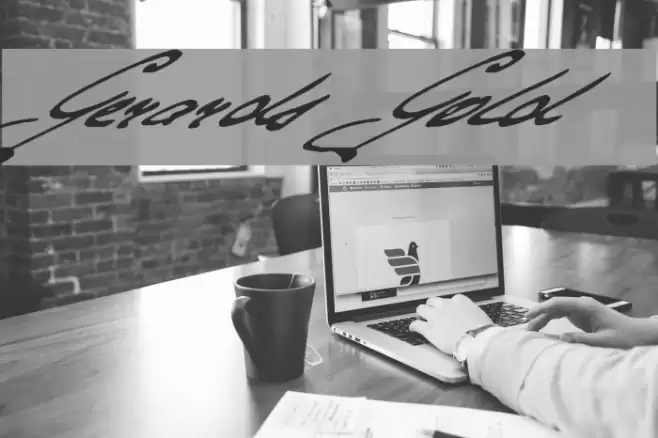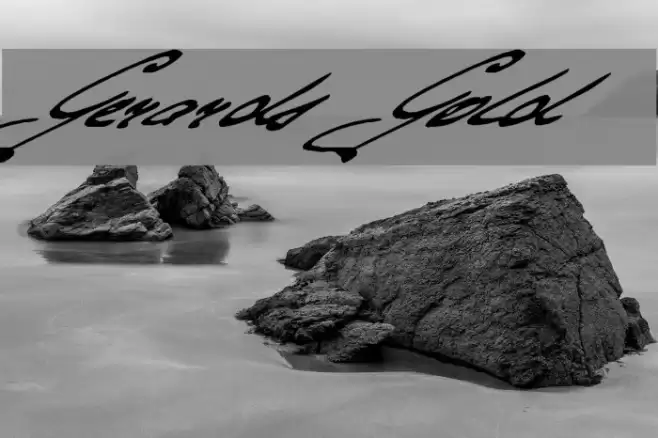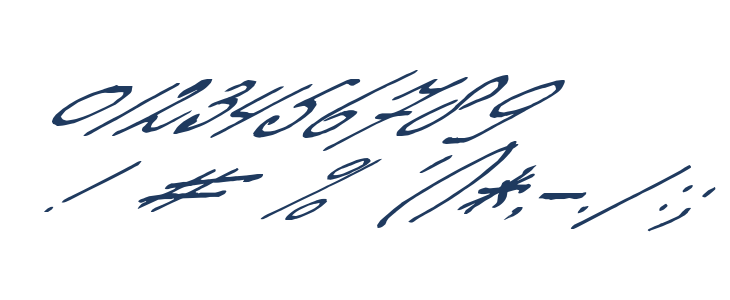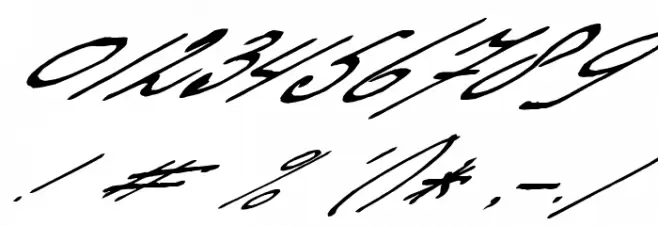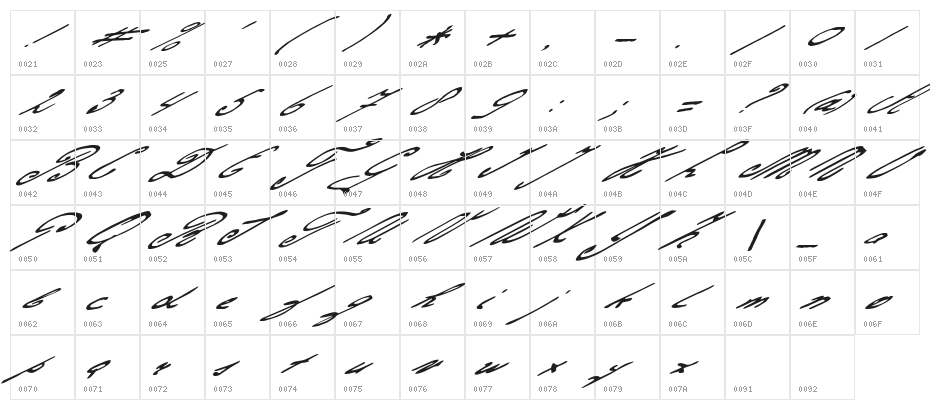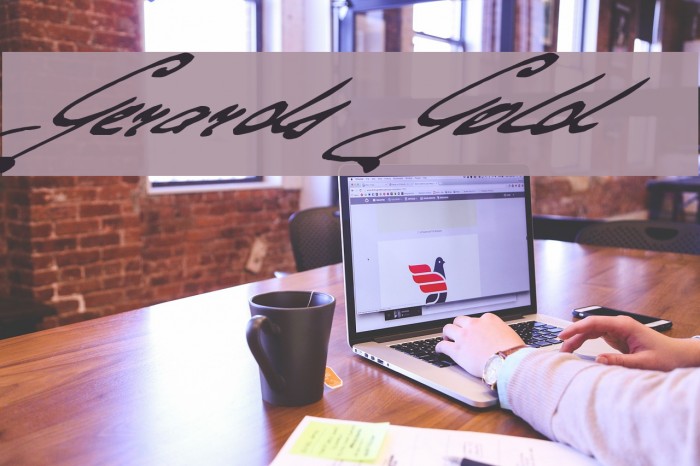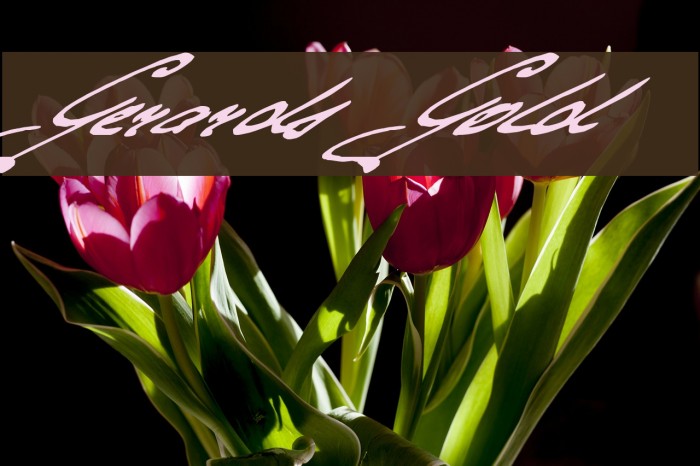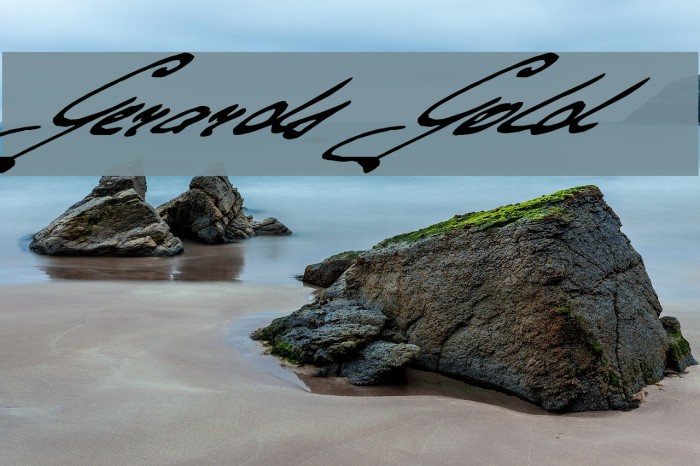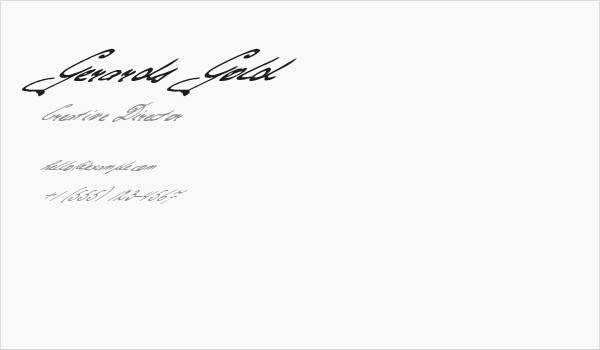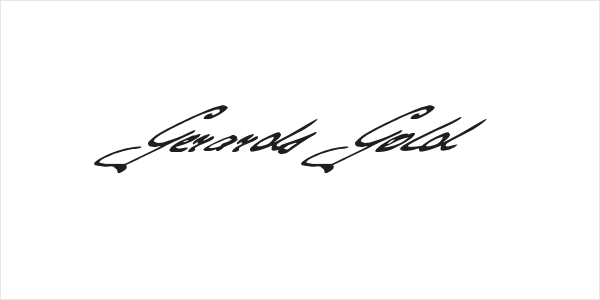
Gerards Gold Font
Gerards Gold Description
This font exudes a dynamic and expressive style, characterized by its fluid, cursive script that mimics elegant handwriting. The strokes are bold and sweeping, with a high degree of slant, giving it a sense of motion and flair. The uppercase letters are ornate, with intricate loops and flourishes, while the lowercase letters maintain a consistent flow, enhancing readability despite the decorative nature. The numbers and special characters are equally stylized, maintaining the overall cohesive aesthetic. This font is ideal for projects that require a touch of sophistication and personal flair.
A bold, cursive script font with elegant, flowing strokes and ornate details from Uncategorized fonts.
- Proposed Projects: Perfect for wedding invitations, luxury branding, personal signatures, and artistic posters.
- Character Spacing: Tight
- Use Case: Logos, Invitations, Artistic projects